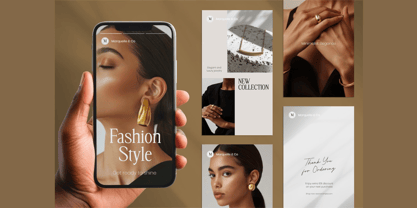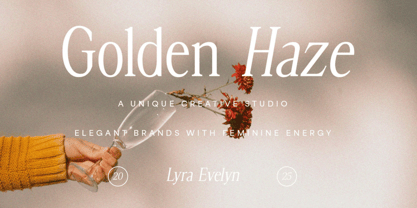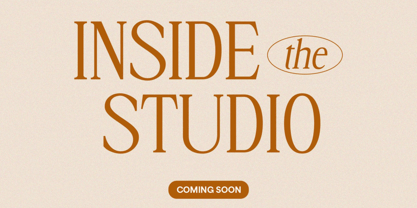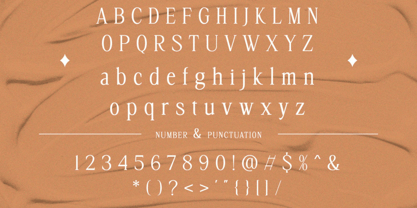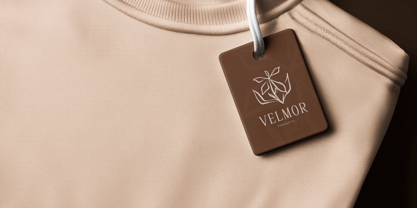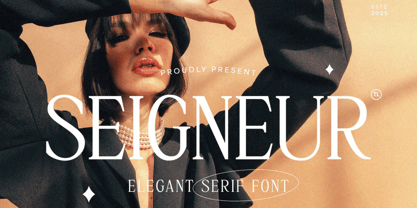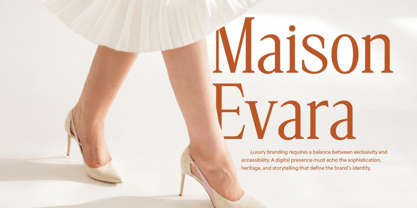
Signeure
by Hasnat Studio
The Signeure Font Family was designed by Hasnat Khan and published by Hasnat Studio. Signeure contains 1 styles. More about this family
Signeure is an elegant serif font that effortlessly combines classic sophistication with modern style. Designed to make a bold visual impact, Signeure is perfect for luxury branding, high-end fashion magazines, editorial layouts, exclusive packaging, and statement logos. Its sharp serifs and graceful curves create a striking balance between tradition and innovation, allowing your designs to radiate exclusivity and timeless elegance.
This serif typeface commands attention with refined letterforms and impeccable style, making it an essential tool for designers seeking to elevate their creative projects. From polished print designs to upscale digital branding, Signeure ensures every word looks powerful, poised, and purposeful.
Key Features:
• Elegant Serif Style: A harmonious blend of sharp serifs and fluid curves for luxurious design.
• Uppercase & Lowercase Letters: Stylish character set that offers flexibility and flair.
• Numerals & Punctuation: Complete typographic elements for refined compositions.
• High Legibility: Designed for both visual impact and easy readability.
• Timeless Appeal: Perfect for both modern minimalism and vintage elegance.
Perfect For:
• Luxury Branding & High-End Logos
• Fashion Editorials & Magazines
• Premium Packaging & Labels
• Wedding Invitations & Event Stationery
• Headline Typography & Posters
• Elegant Website Titles & Hero Text
Step into a world of refined aesthetics with Signeure – Elegant Serif Font. It’s the ultimate choice for designers aiming to create powerful, polished, and timelessly beautiful work.